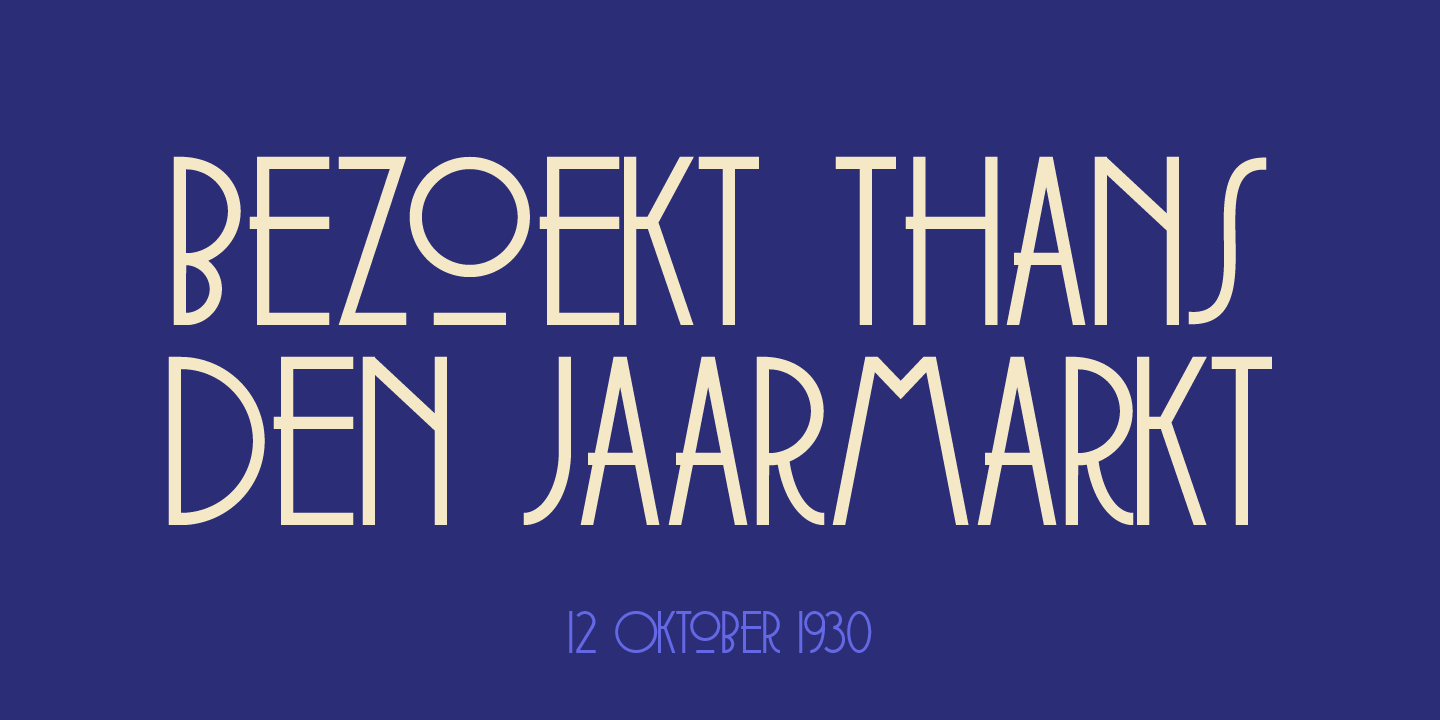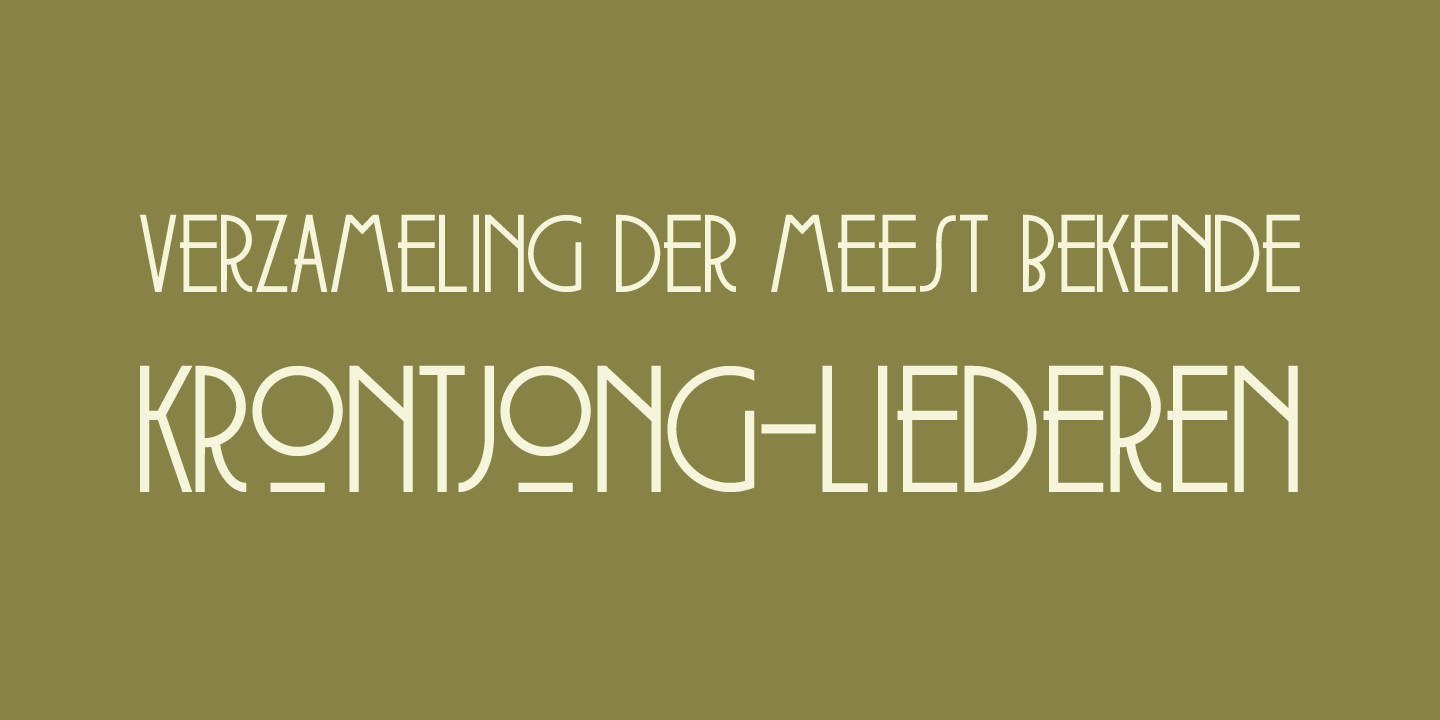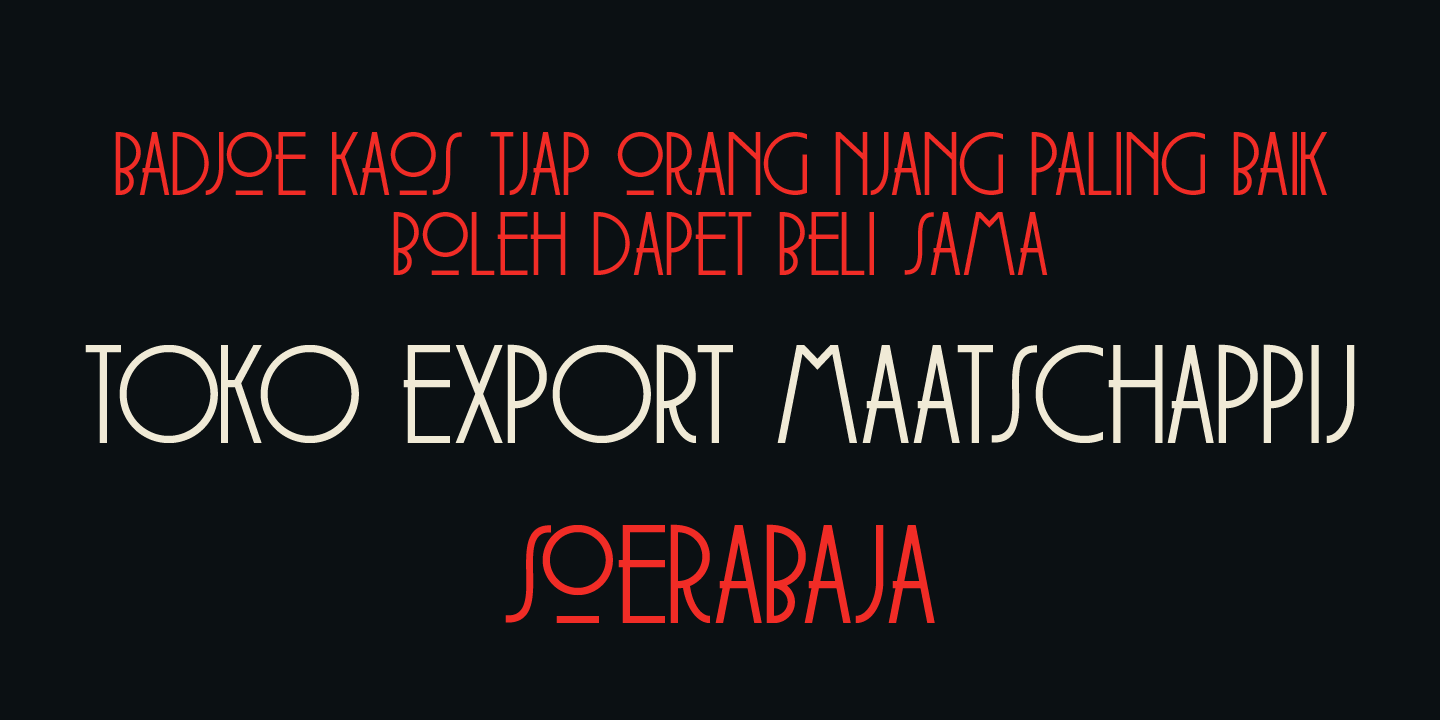
Soerabaja is the old Dutch spelling of Surabaya, an important trading port city in East Java (Indonesia). This all caps art deco font was based on old colonial posters I found, plus a sprinkling of my imagination. It seems I have a weak spot for Art Deco…